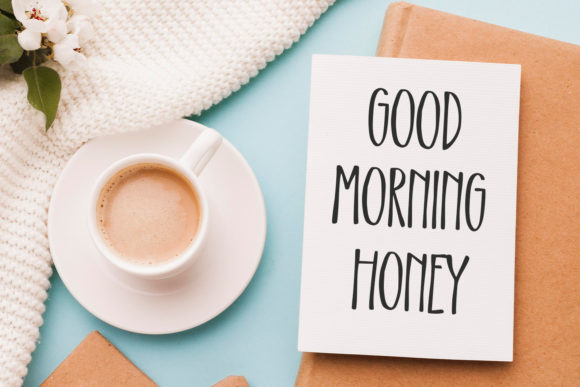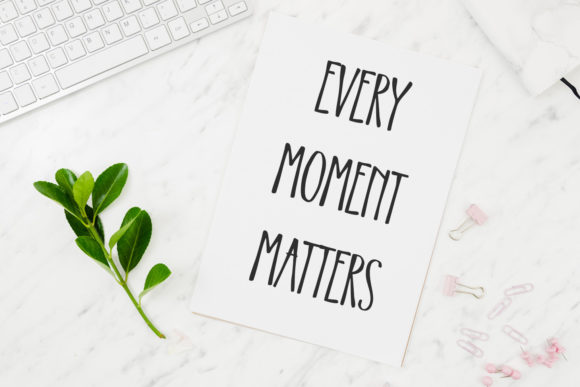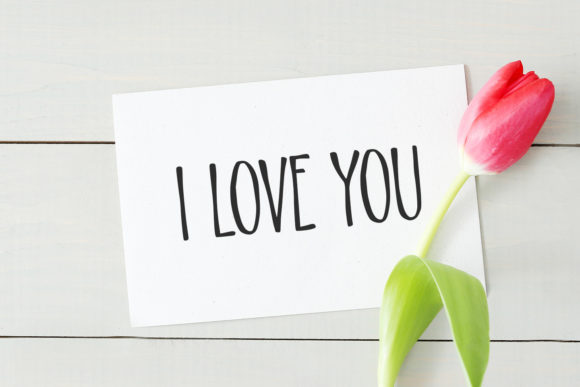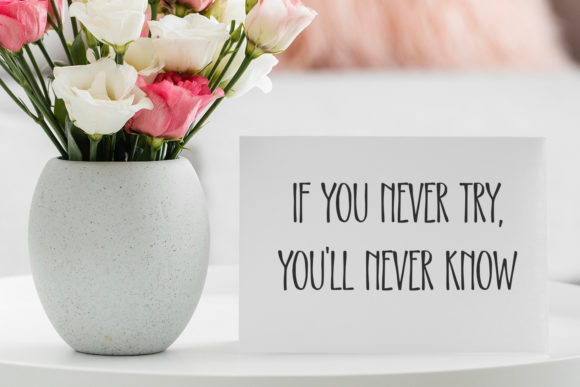
Introduction to Harvest Star Font
Harvest Star is a thin and natural hand-written font.
Key Features of Harvest Star Font
Why Choose Harvest Star Font?
Harvest Star Font offers exceptional quality and versatility, making it a valuable addition to your design toolkit. Whether you’re creating for personal projects or commercial use, Harvest Star Font delivers professional results.